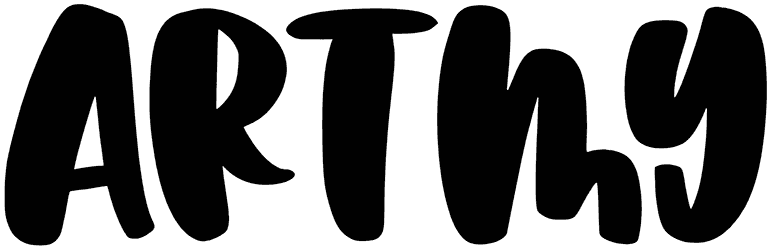
Artmy Font
When you get your hand on a handwritten font as adorable as Artmy, don’t let go. It’ll come in handy in plenty of your future projects, proving itself as one of the most valued items in your toolkit. There’s only one set of letters, a combination of lowercase and capitals, but you can find it in a second style, carved with leaves, turning it into an optional spring font. See why Artmy belongs to your spring posters, apparel design, etc?
ARTMY